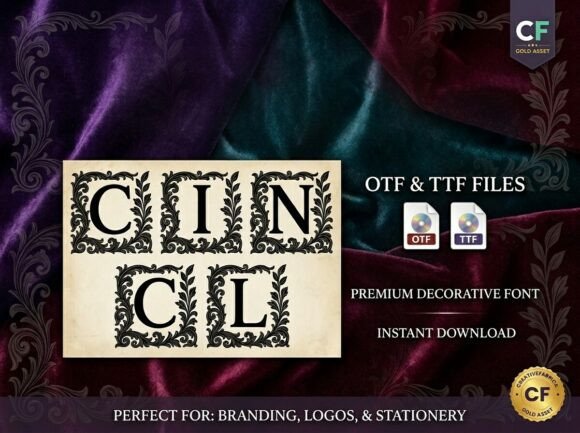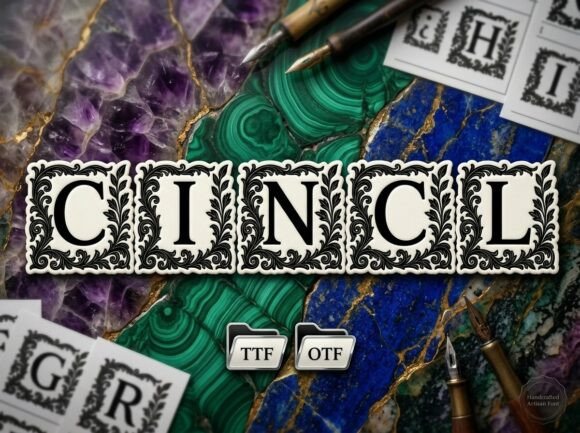
Introducing Cincl Font: A Stunning Decorative Display Font
Are you tired of using the same old fonts for your designs? Do you want to make a statement and stand out from the crowd? Look no further than Cincl Font, a unique and artistic decorative display font that’s perfect for creators who want to add a touch of elegance and sophistication to their work.
Cincl Font is a stunning decorative display font designed to be the center of attention. With its unique artistic elements and strong visual personality, this font is sure to make your designs pop. Whether you’re looking to create bold headlines, artistic logos, or creative packaging, Cincl Font is the perfect choice. Its versatility and professional finish make it an ideal font for designers and crafters who want to take their work to the next level.
Why Choose Cincl Font?
So, why choose Cincl Font over other decorative display fonts? Here are just a few reasons:
- Unique and Artistic – Cincl Font features unique artistic elements that will make your designs stand out from the crowd.
- Versatile – This font is perfect for a variety of design applications, including bold headlines, artistic logos, and creative packaging.
- Professional Finish – Despite its decorative nature, Cincl Font maintains a professional and polished finish that’s perfect for designers and crafters who want to create high-quality work.
Design Applications for Cincl Font
Cincl Font is perfect for a variety of design applications, including:
- Headlines and Titles – Use Cincl Font to create bold and eye-catching headlines and titles for your designs.
- Logos and Branding – Cincl Font is perfect for creating artistic logos and branding materials that will make your business stand out.
- Packaging and Labels – Use Cincl Font to create creative and eye-catching packaging and labels for your products.
- Signage and Displays – Cincl Font is great for creating eye-catching signage and displays that will grab attention.
In conclusion, Cincl Font is a stunning decorative display font that’s perfect for designers and crafters who want to add a touch of elegance and sophistication to their work. With its unique artistic elements, strong visual personality, and versatility, Cincl Font is sure to make your designs pop. So why wait? Purchase Cincl Font today and take your designs to the next level.